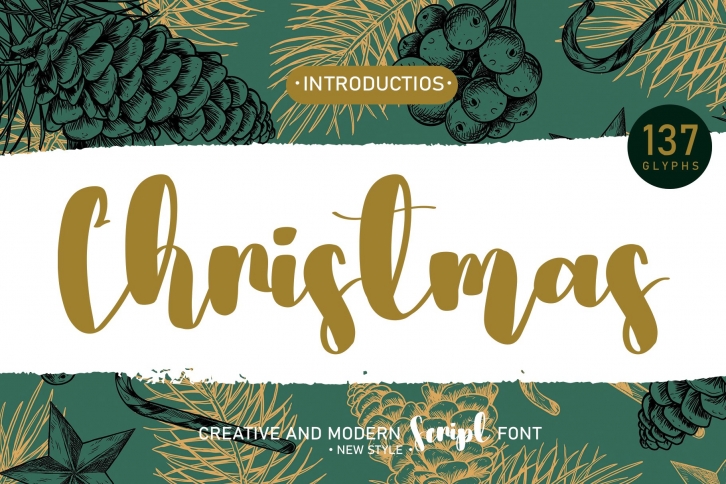
Christmas is a beautiful font that was designed by Scratchones. It's a great choice for designers and creatives who need such a font. It was released on October 17, 2021 and the file size is 9.35 MB. Christmas may give a more youthful, expressive and casual look to your project. It is a very beautiful, refined, elegant, and high-quality font.